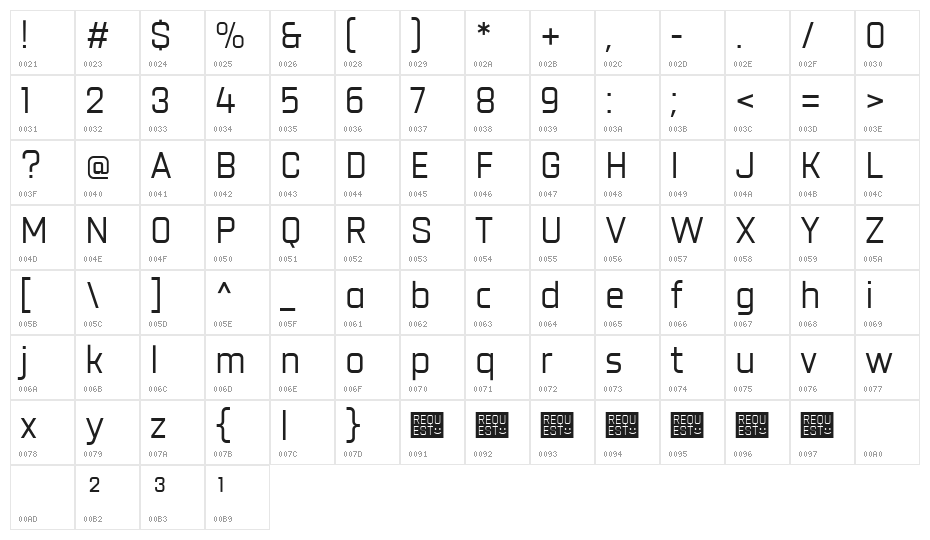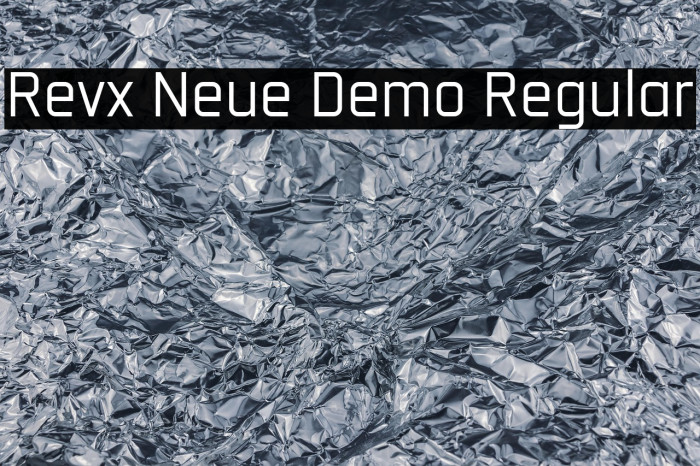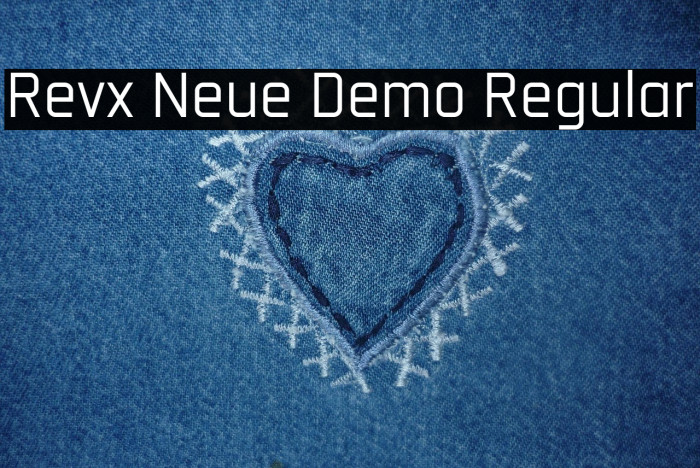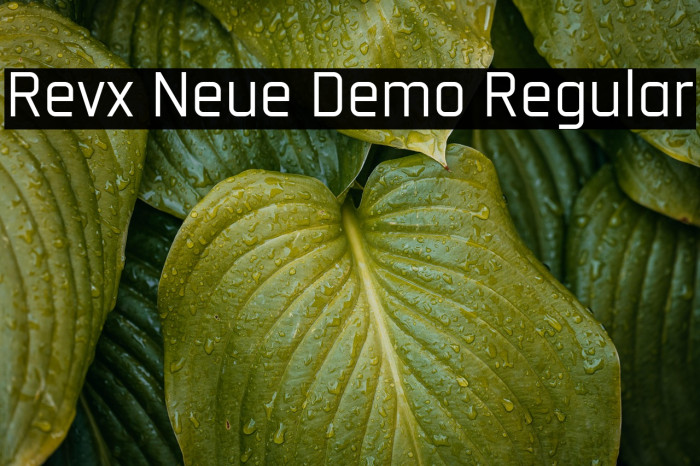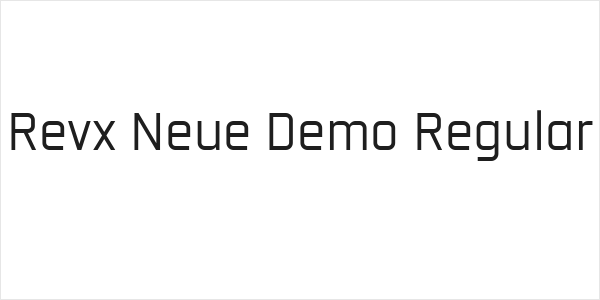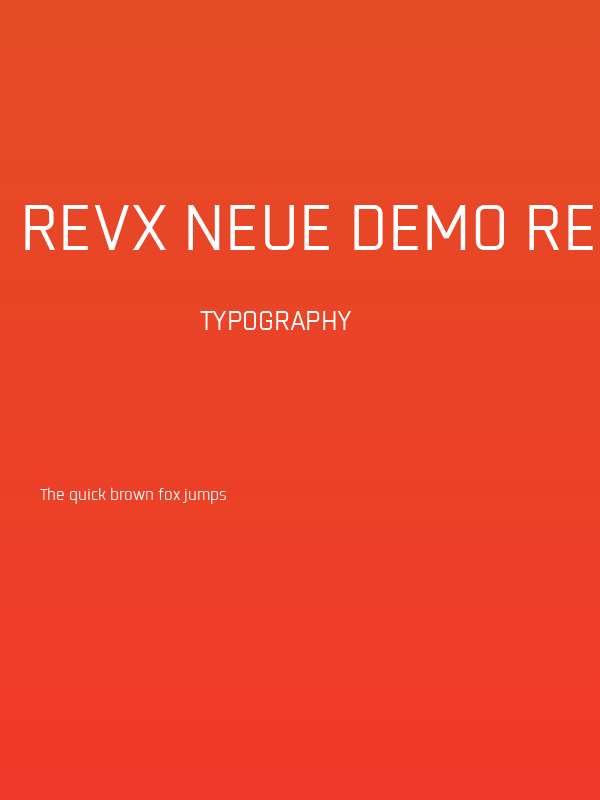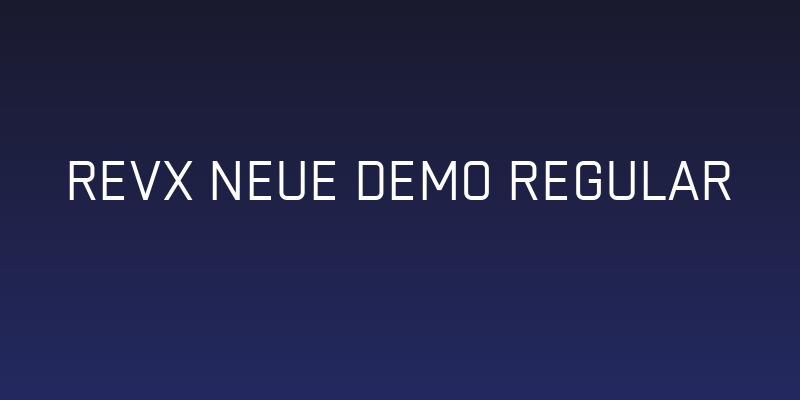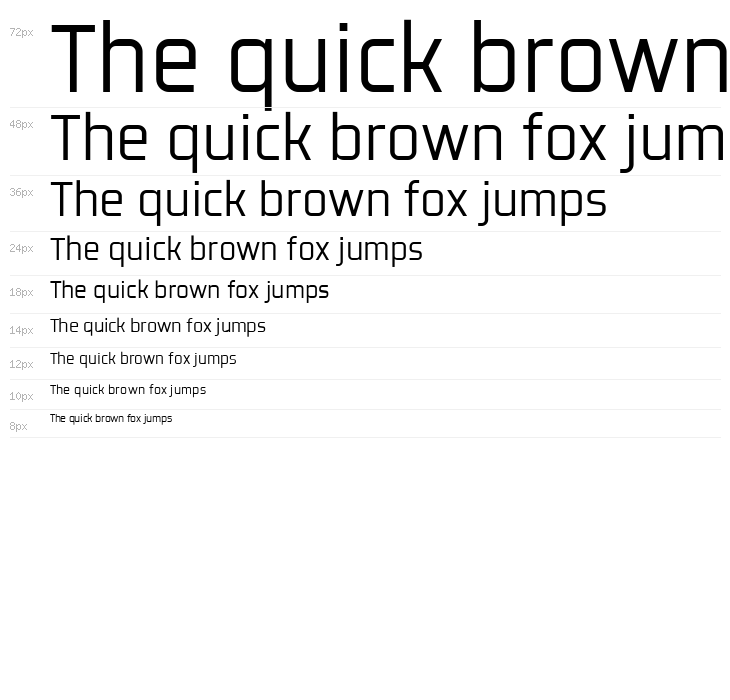
Revx Neue Demo Regular Font
Revx Neue Demo Regular Description
This font features a clean, geometric design with a modern aesthetic. The characters are uniform in width, creating a balanced and harmonious appearance. The uppercase letters are bold and assertive, while the lowercase letters maintain a consistent style with slightly rounded edges that add a touch of softness. The numerals are clear and easily distinguishable, making them suitable for both digital and print applications. The special characters are well-integrated, maintaining the overall sleek and contemporary feel of the font. Its versatility makes it ideal for a wide range of design projects.